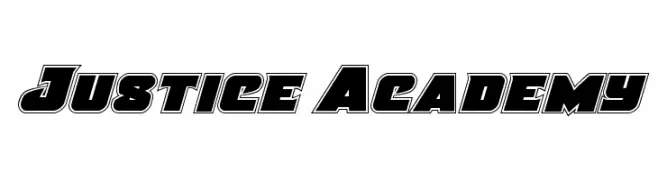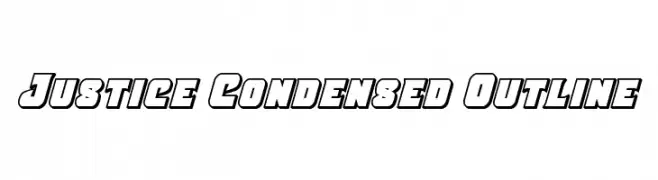
A bold, dynamic font with strong outlines and geometric shapes, perfect for impactful designs.
A bold, three-dimensional font with a retro-futuristic chrome appearance.
A bold, condensed font with a dynamic slant and high contrast, perfect for impactful designs.
A bold, condensed font with an outlined style, perfect for impactful headlines.
A bold, condensed font with straight edges and a modern, impactful style.
A bold, dynamic font with angular cuts and a forward-leaning slant.
Bold, expanded outline font with geometric shapes and sharp angles.
A bold, expanded font with straight edges and a strong, modern presence.
A bold, dynamic font with a gradient effect created by horizontal lines, offering a modern and energetic look.
A bold, outlined font with a gradient effect and dynamic, three-dimensional appearance.